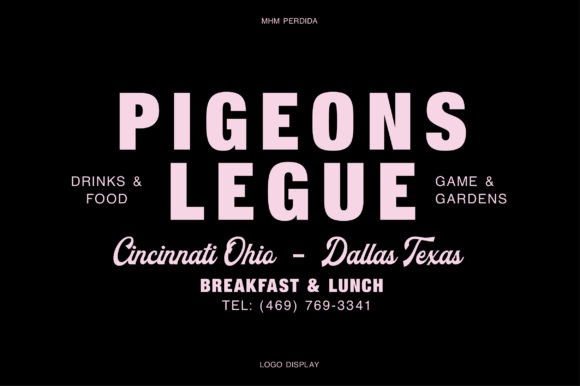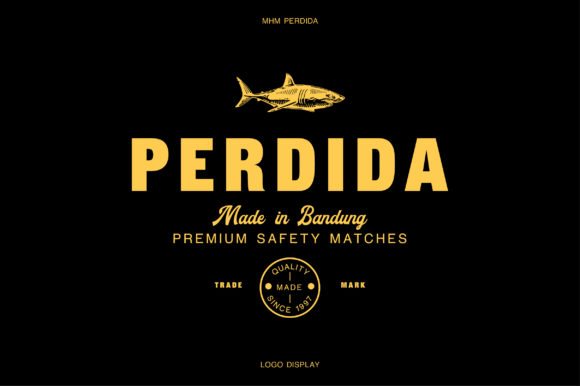
Introduction to Perdida Font
As a designer, have you ever been in the midst of a creative project, frantically searching for the perfect font to elevate your message? The struggle is real, but we’re about to change that. Today, we’re excited to introduce you to the Perdida Font, a bold and assertive display font that’s sure to become your new go-to design resource.
Whether you’re working on a high-impact marketing campaign or a personal creative project, the Perdida Font is the perfect addition to your design arsenal. Its high-quality design makes it an asset to any visual project, and the best part? It’s available for free download, so you can start incorporating it into your designs right away.
Key Features of Perdida Font
- High-quality, professional design suitable for various creative projects, including logos, graphics, and branding materials.
- Transparent background, making it ideal for use on images or videos with complex backgrounds.
- Designed with a unique, modern aesthetic, perfect for designers seeking a distinctive look for their projects.
- Perfect design resource for designers, artists, and creatives working on various projects, from logos to graphics and branding materials.
Honest Review: Perdida Font
I recently stumbled upon the Perdida Font, and I must say it’s a great addition to any designer’s toolkit. The high quality of this font is evident from the first glance, making it a perfect design resource for any creative project.
Here are some things that I really like about the Perdida Font:
- ✨ High quality design: The font is crisp, clear, and visually appealing, making it perfect for a variety of applications.
- ✨ Versatile: The Perdida Font comes in a range of weights and styles, making it easy to use in different contexts.
- ⚠️ Limited compatibility: The font may not work well with older software or operating systems.
- ⚠️ No transparent background: Some designers may find the lack of a transparent background to be a limitation, especially when working with complex designs.
Overall, I’m impressed with the Perdida Font. It’s a great addition to any designer’s toolkit, and I’d highly recommend it for any creative project. Just be aware of the limitations mentioned above, and you’ll be good to go!
Perdida Font is perfect for creative projects that require a unique and sophisticated touch. Use it for wedding invitations, business cards, or any design that requires a high-quality font with a transparent background effect.
Montserrat Font is a popular sans-serif typeface perfect for creative projects requiring a clean and modern design. It’s a great alternative to Perdida Font for designers looking for a high-quality, free download with a transparent background.
Montserrat Font is ideal for use in headings, titles, and body text, especially in digital design projects. Compared to Perdida Font, Montserrat has a more geometric and urban feel, making it suitable for a wide range of design applications.
Open Sans Font is a modern sans-serif typeface that’s highly legible and suitable for a variety of design projects. It’s a great alternative to Perdida Font for designers seeking a high-quality, free download with a transparent background.
Open Sans Font is ideal for use in body text, especially in digital design projects, such as websites, mobile apps, and e-books. Compared to Perdida Font, Open Sans has a more neutral and friendly feel, making it suitable for a wide range of design applications.